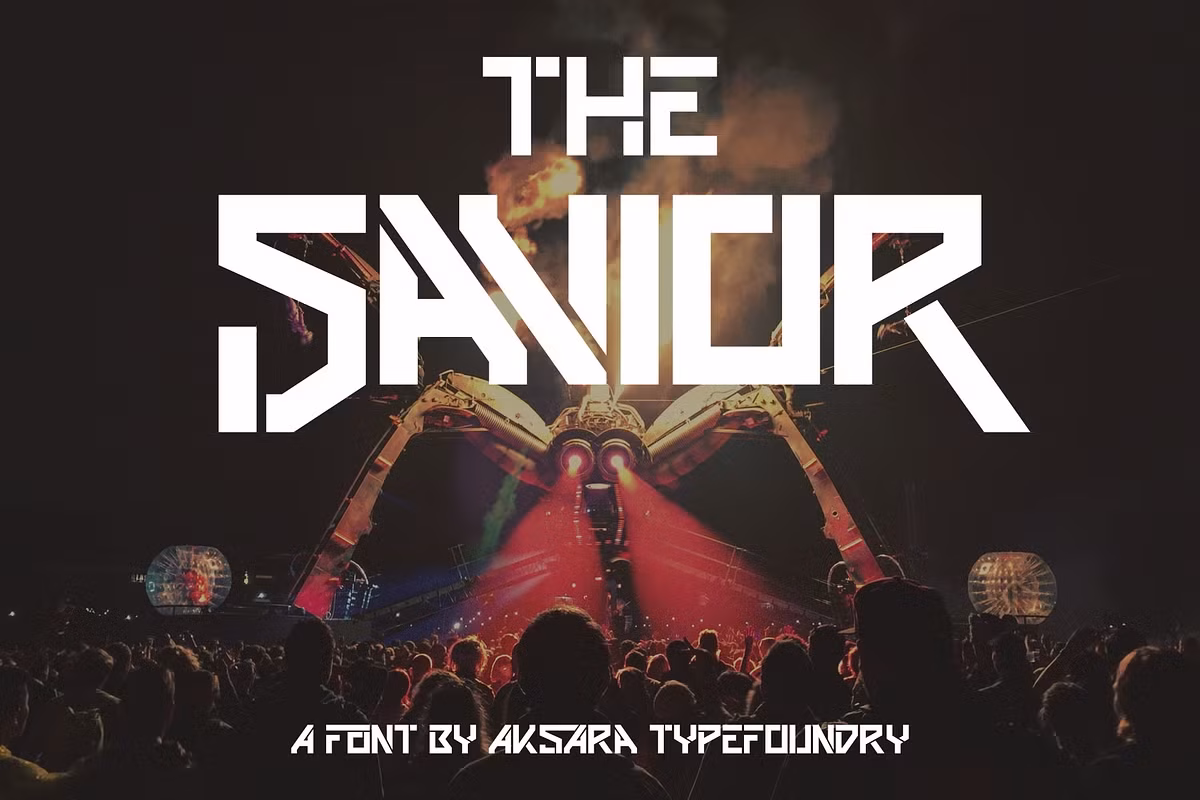
The Savior | Futuristic Font Free Download
The Savior | Futuristic Font Free Download is a cutting-edge typeface designed to bring a modern, tech-forward feel to your designs. With its sleek lines, geometric forms, and futuristic aesthetic, this font is perfect for sci-fi projects, tech startups, video game logos, and any design that needs a bold, modern edge. Whether you're working on a high-tech branding campaign or creating eye-catching promotional materials, The Savior | Futuristic Font Free Download offers the opportunity to experiment with its bold, futuristic vibe in personal projects before purchasing a commercial license. Step into the future of design with this dynamic font that combines minimalism and innovation to make a statement in any project.